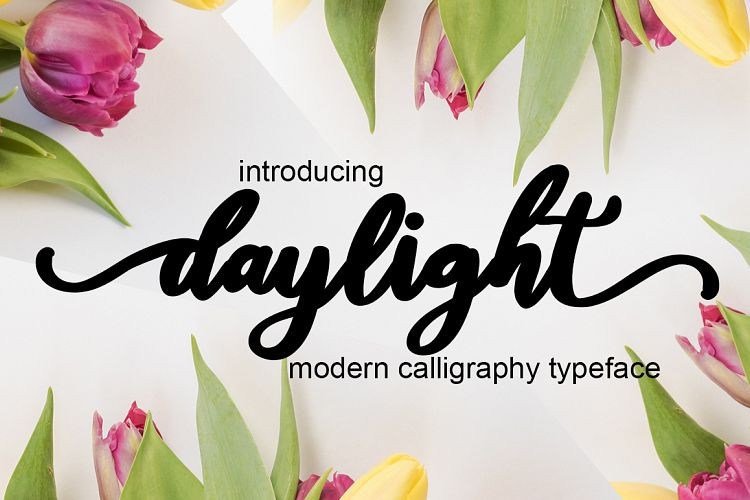
Daylight Calligraphy Font
Introducing
Daylight Script a new fresh & modern script with a handmade calligraphy style, decorative characters So beautiful on the invitation like greeting cards, branding materials, business cards, quotes, posters, and more!!